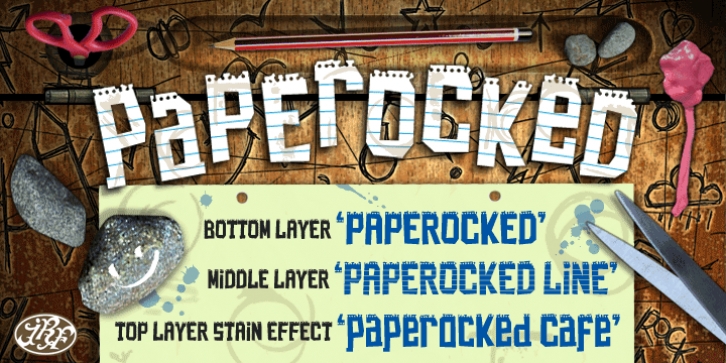
The computer age promised us so many things. The paperless society was one of them. We waited and waited for the time when our old friend paper was going to take a holiday. That day has still not arrived.
Our love affair with all things paper just keeps getting stronger. The touch, the feel, the smell. Now, finally, paper speaks back!
Paperocked is a Display Font family of 3 distinctive and original, fun fonts (Paperocked, Paperocked Line & Paperocked Cafe) that allows you to create words and sentences that look like they have been torn and cut from the pages of a favorite notebook.
You can purchase Paperocked and color the font any way you like. White like blank paper or hot lemon like sticky notes. How about fluorescent colors? Purchasing both Paperocked and Paperocked Line allows you to layer one font on top of the other and make the base Paperocked blue and Paperocked Line white, giving you that authentic blue lined paper look.
Also grab Paperocked Cafe, a font that allows you to type coffee stains (rings), spots, marks and blemishes, and you've got yourself letters, words, sentences and wear and tear marks that look super realistic.
From birth certificates to certificates saying we've gone, from our earliest school days to our busiest office hours, paper rocks!